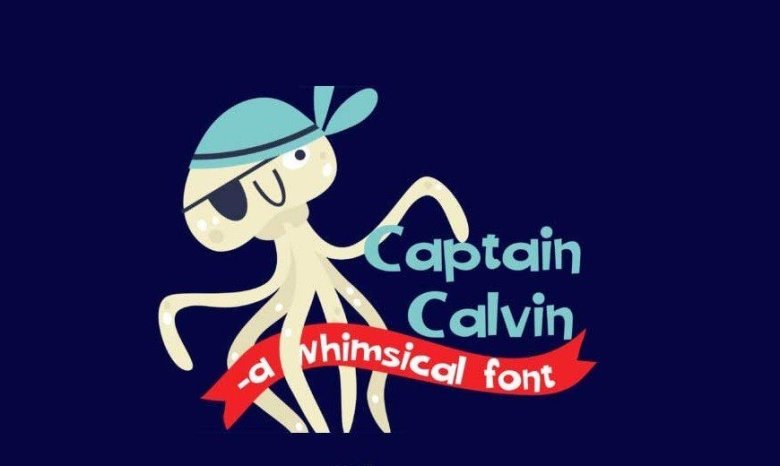
Captain Calvin Font
Captain Calvin is a cute sans serif font that is great font for titles, displays, posters, and more. Get inspired by its playful look & feel!